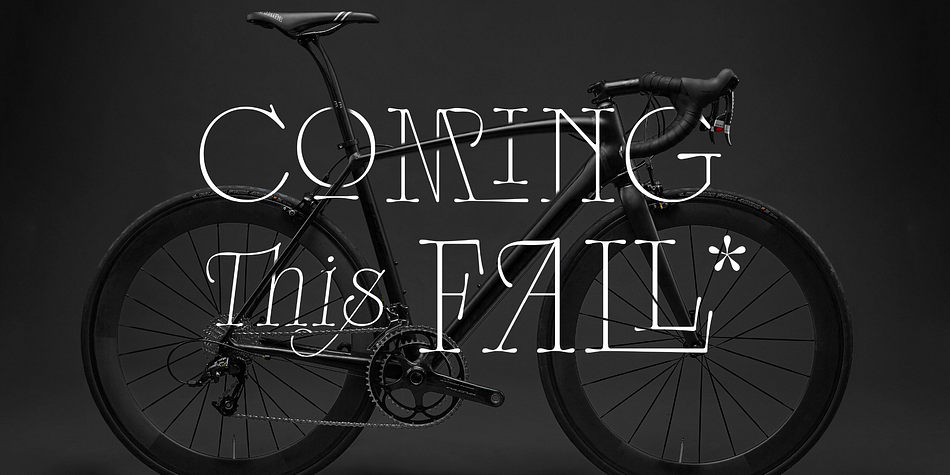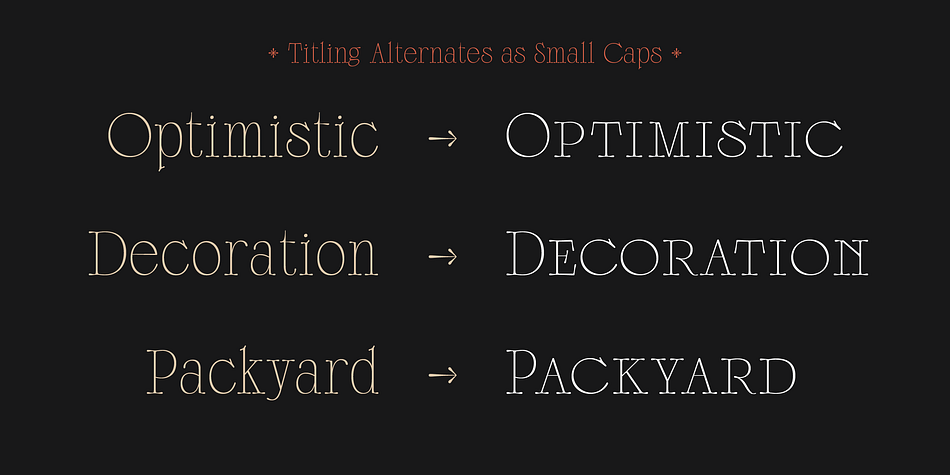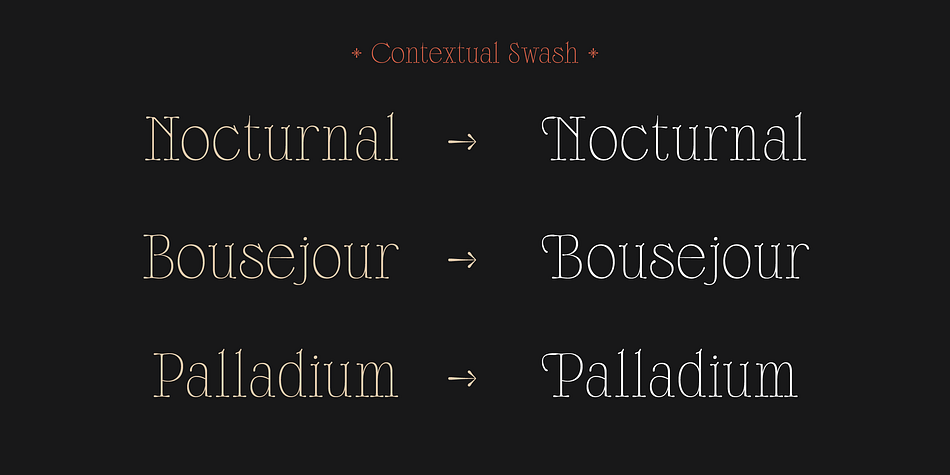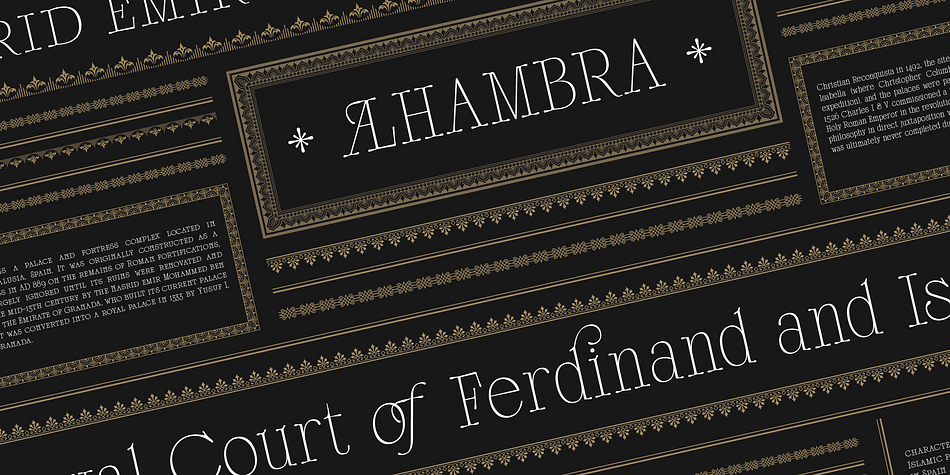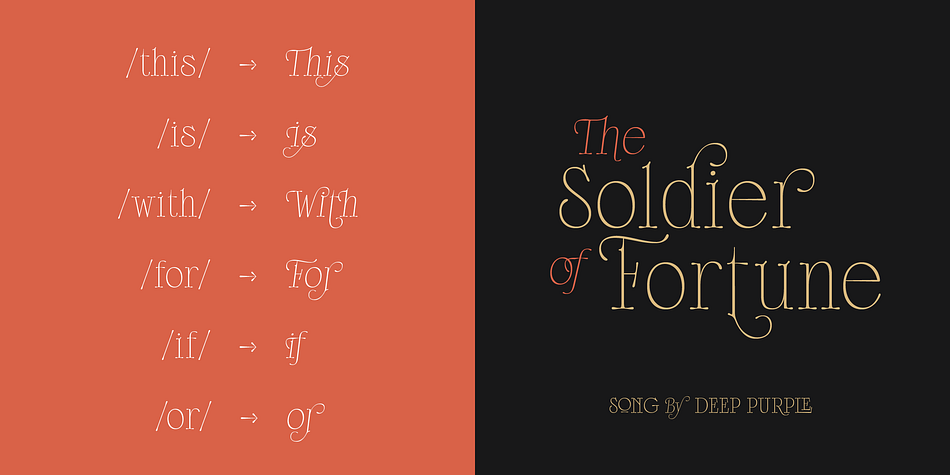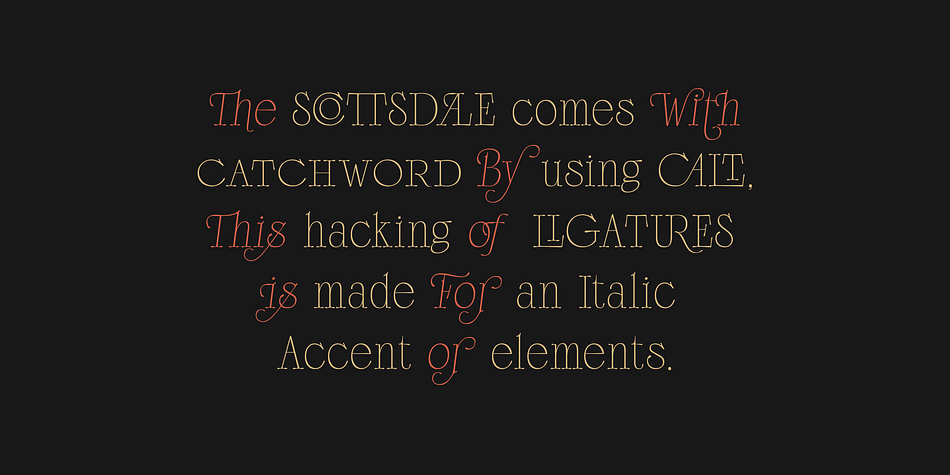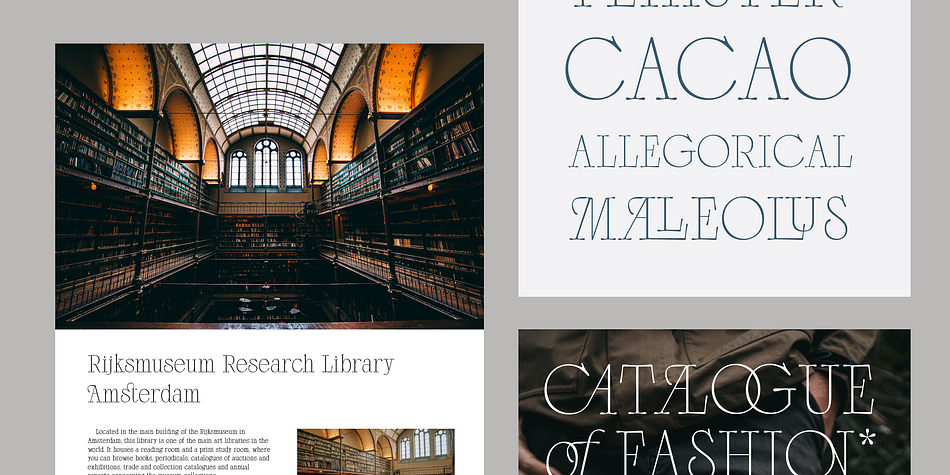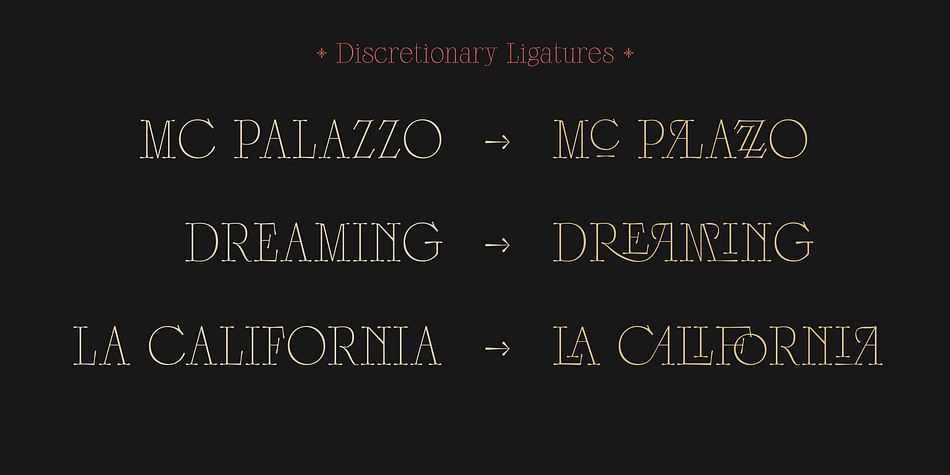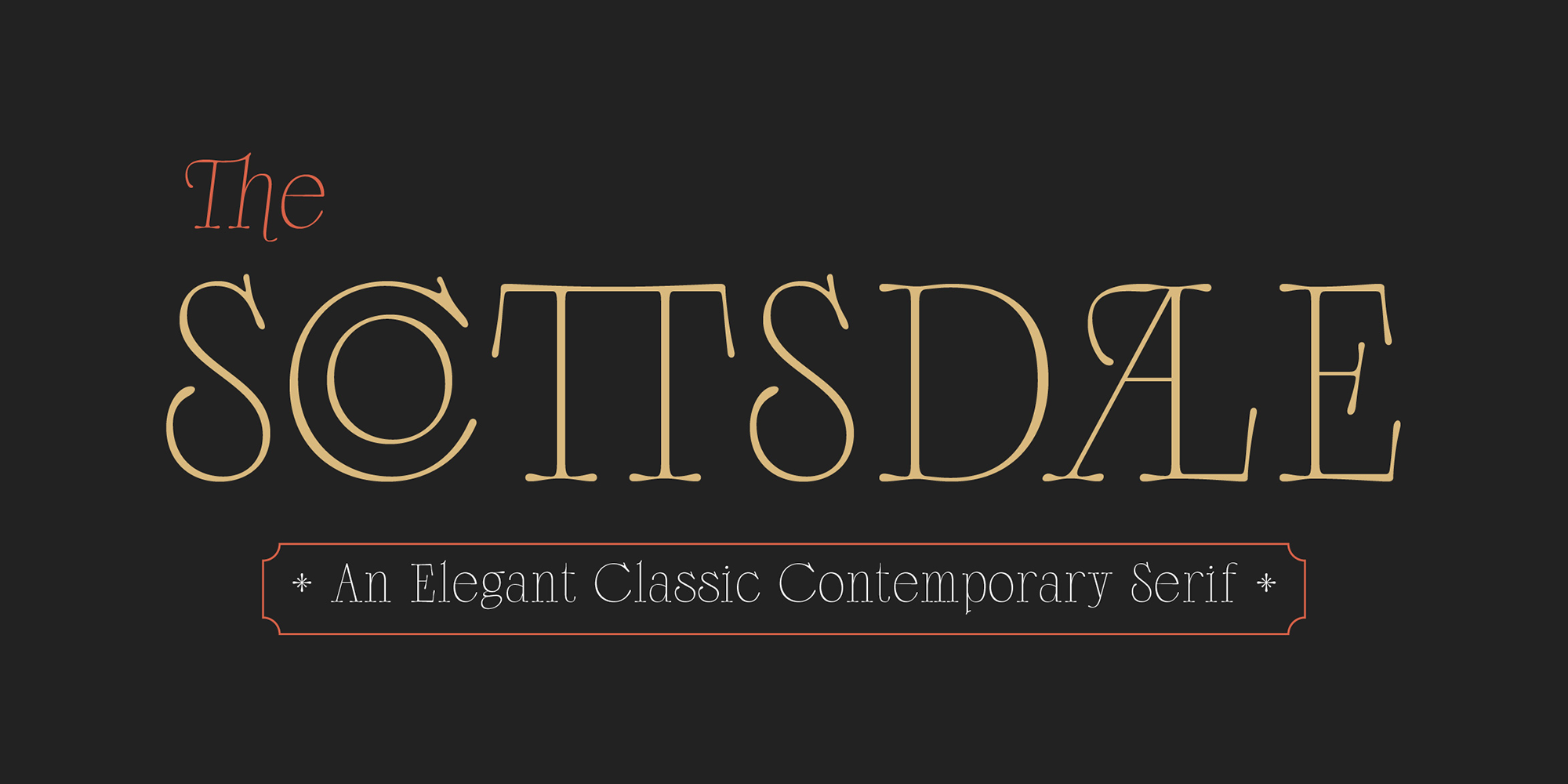
Scottsdale
Scottsdale is a serif font family published by AF Studio.
Meet The SCOTTSDALE - An Elegant Classic Contemporary Serif
The Scottsdale are inspired by an classic contemporary serif, combined with simple modern look. It’s a versatile. It can be used with a lot of style design. The Characteristic of Scottsdale are on the serif, from small to bigger rounded made it looks Sharp and Comfy. Thin, Light define the modern and simplicity of the typeface itself. Default number with OldStyle Numerical made it match with the characteristic of this fonts. Working with the lowercase are still good for a long text, but it Best for a Header or Display.
The Scottsdale comes with Most of Opentype Features :
The most and the powerful of ligatures as Discretionary Ligatures
Stylistic Alternates on Uppercase and Lowercase
Contextual Swashes adding a Terminal (first swash) on the First Uppercase letters
Small Capitals (Also can be operated with button of Titling Alternates)
Catchword are created with Contextual alternates see the images to show how it works.
Punctuation and Symbol are perfectly matched with all letters,
Numerical features are available :
Tabular Figures
Numerator
Denominator
Superscript/Superior -Subscript/Inferior and Fraction.